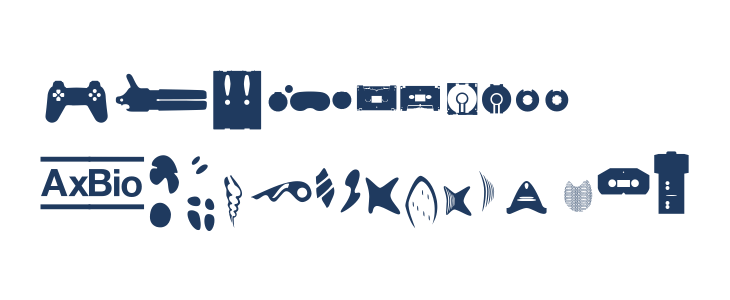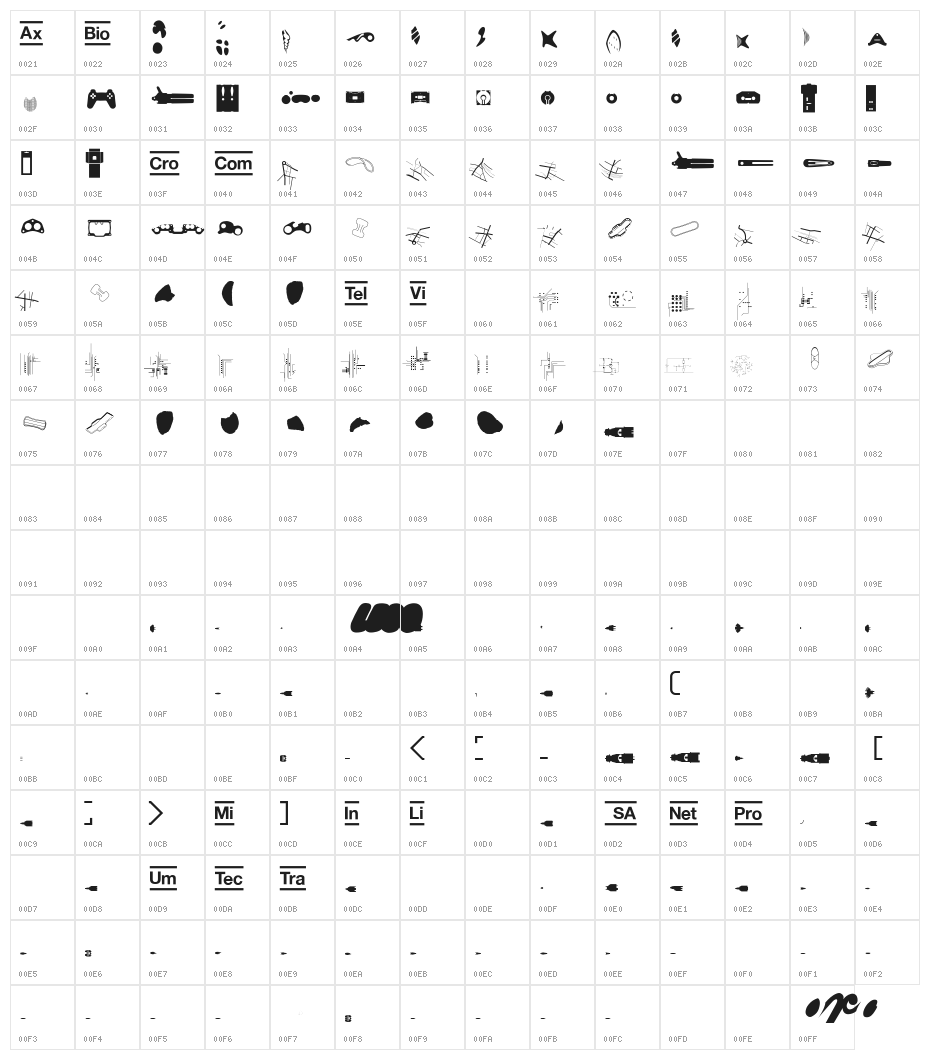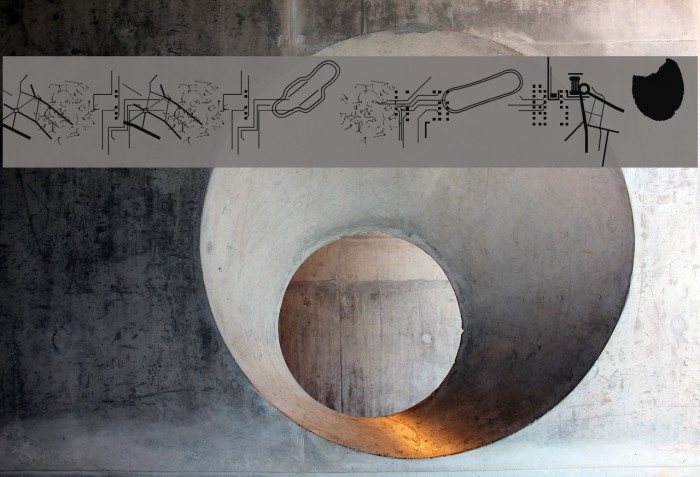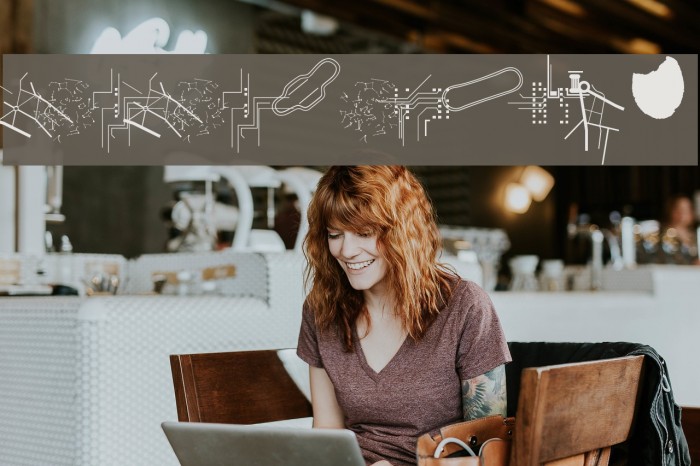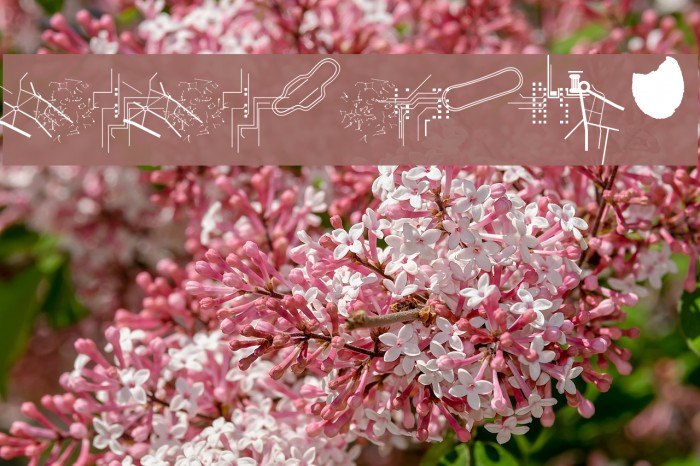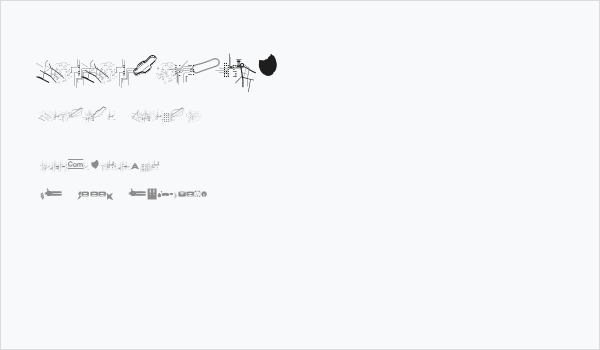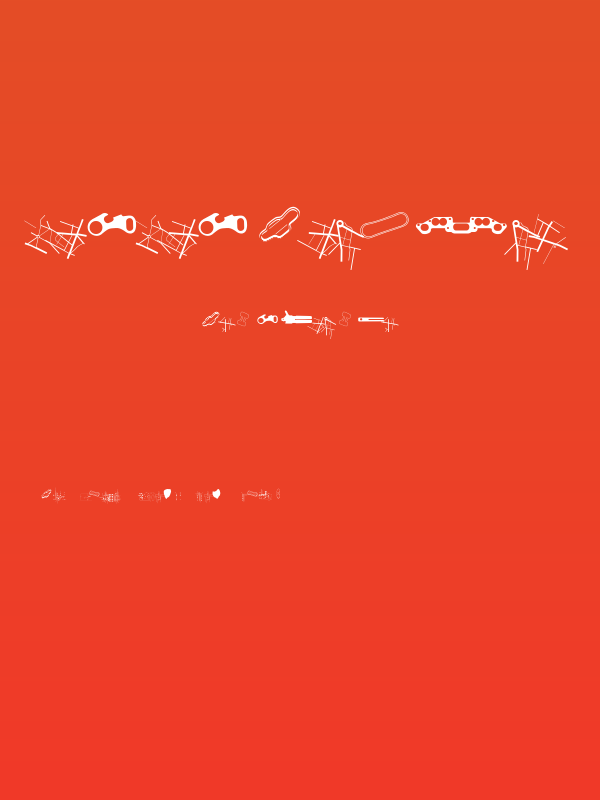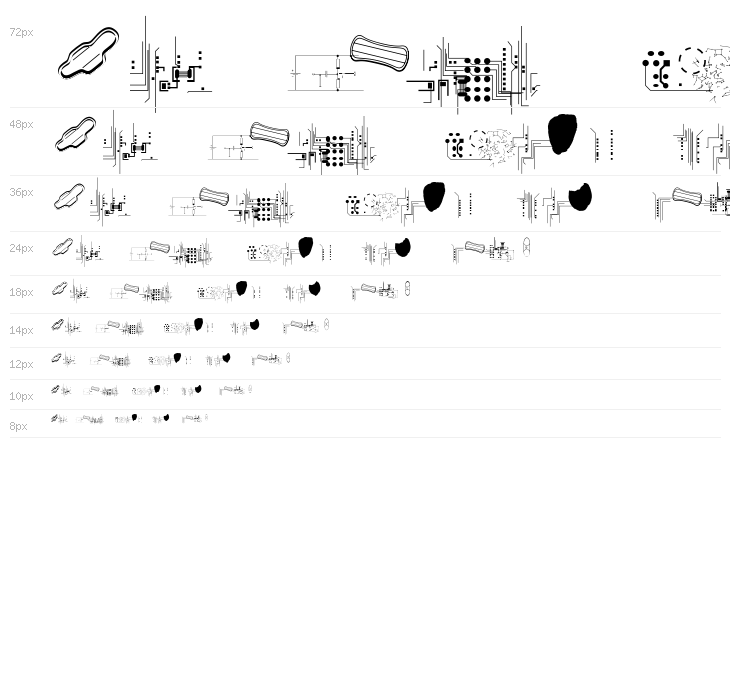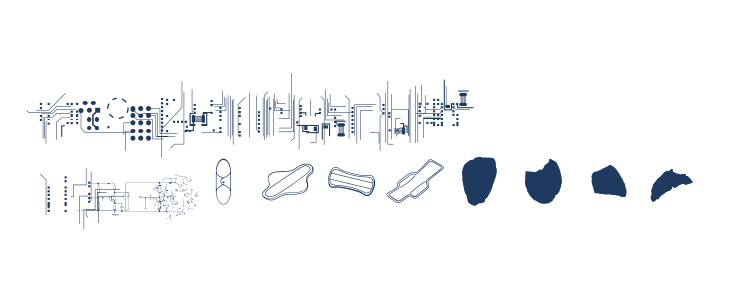
CroCroTraUmAx Font
CroCroTraUmAx Description
A highly experimental and abstract font featuring a mix of circuit-inspired, organic, and geometric shapes. Each character is represented by a unique symbol, some resembling electronic components, game controllers, or abstract biological forms. The style is eclectic, with varying line weights, filled and outlined shapes, and a playful, unconventional approach to letterforms.
| Overall Style | Decorative, Experimental, Futuristic |
| Use Case | Logos, Posters, Art installations, Titles |
| Proposed Projects | Album covers, science fiction posters, experimental art projects, technology branding, video game graphics. |